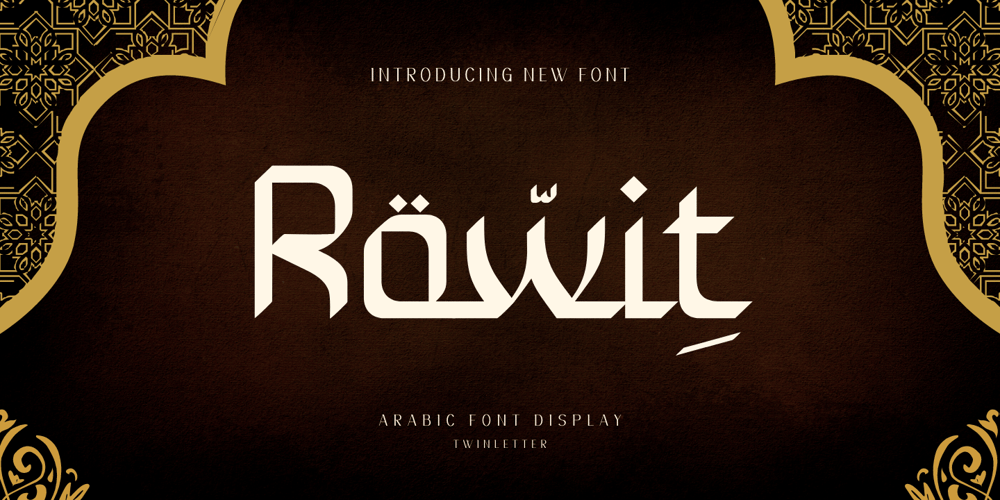
Rowit
Rowit font
Rowit Font Family was designed by Rozikan and published by Twinletter. Rowit contains 1 styles and family package options. Introducing Rowit, a premium Arabic style font. The display brings luxury and prestige to your designs. This innovative typeface comes to give you the flexibility to create the look and feel you need for any occasion. Crafted with meticulous attention to detail, and containing hundreds of glyphs, this font collection is the best choice for bringing harmony to your designs.